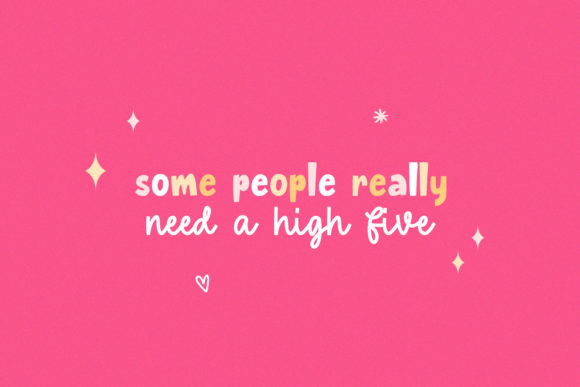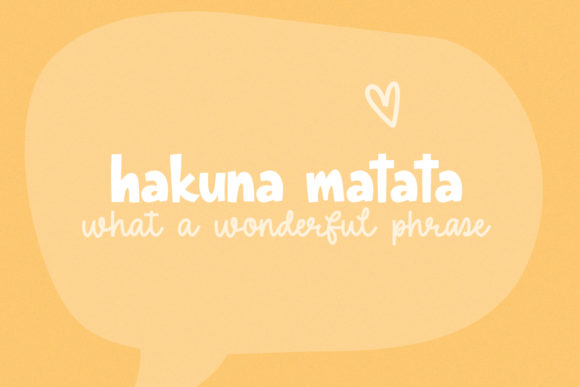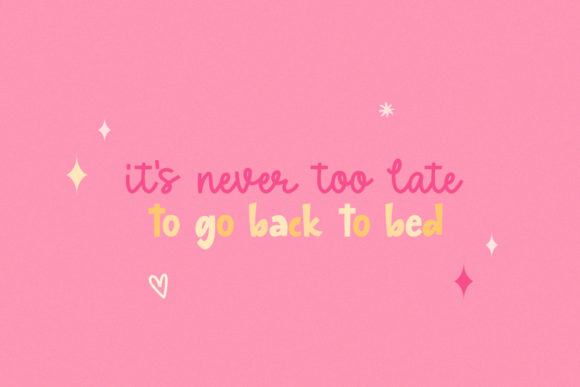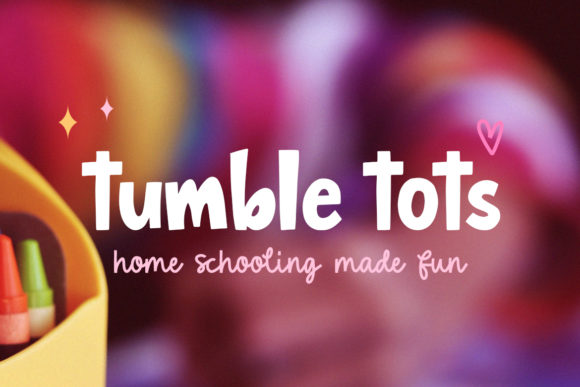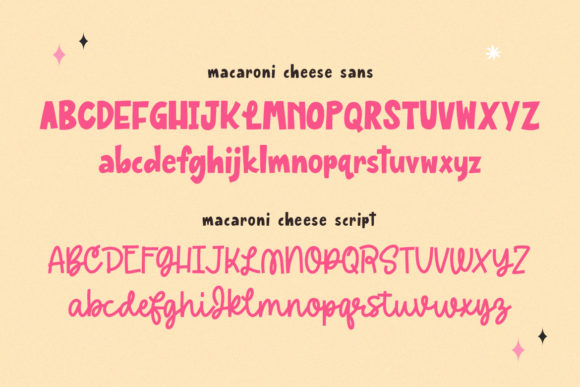
Introduction to Macaroni Cheese Font
Macaroni Cheese is a delicious and friendly duo font (display and handwritten).
Incredibly versatile, this font fits a wide pool of designs, elevating them to the highest levels Add this font to your favorite creative ideas and notice how it makes them come alive.
Key Features of Macaroni Cheese Font